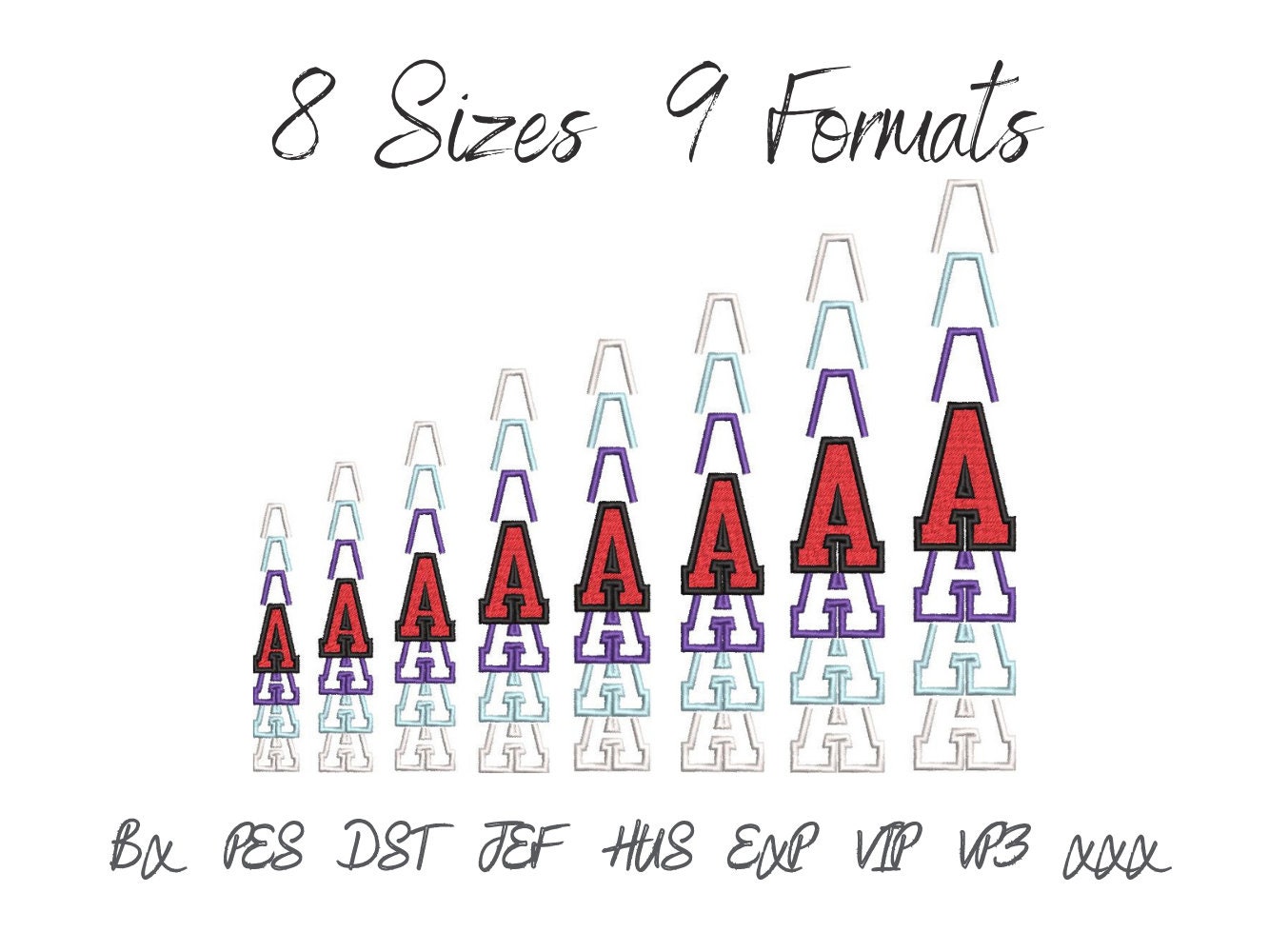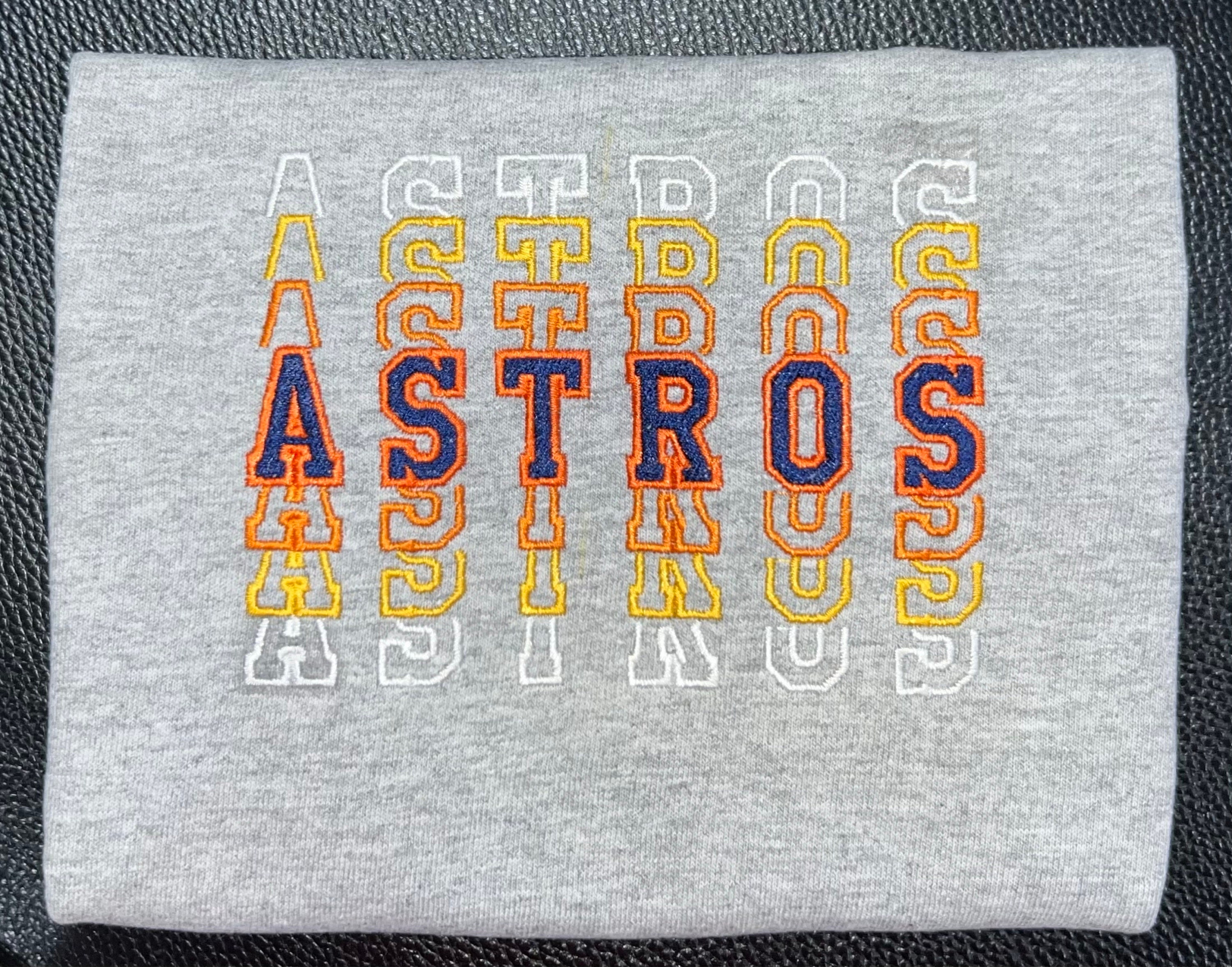
Stacked Font Athletic Sport, fill stitch and outline alphabet letters, boy trend Font fabulous machine embroidery designs many sizes BX included
The whole alphabet
A-Z uppercase, numbers 0-9 and special marks & /
The letters sewed out beautifully! Was perfect for a masculine school spirit shirt :)
Nice stitch out. The I stitched out double.